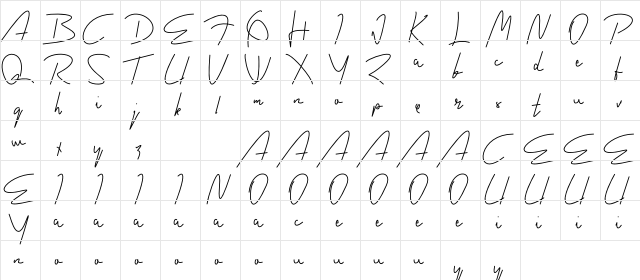
Childish Signature Regular
Design Context for Childish Signature Typeface
Childish Signature trades formality for fun, with bouncy, characterful letterforms that bring warmth and energy to any project.
Well-suited to food and beverage brands with personality, educational materials, and fun-forward identities.
Font Pairing: Pairs well with a rounded or humanist sans for body copy, maintaining the friendly tone without relying on Childish Signature to carry extended reading.
Pro Tip: Use Childish Signature at larger display sizes where its expressive character can land. Pair with a clean, simple sans for body copy to maintain readability.